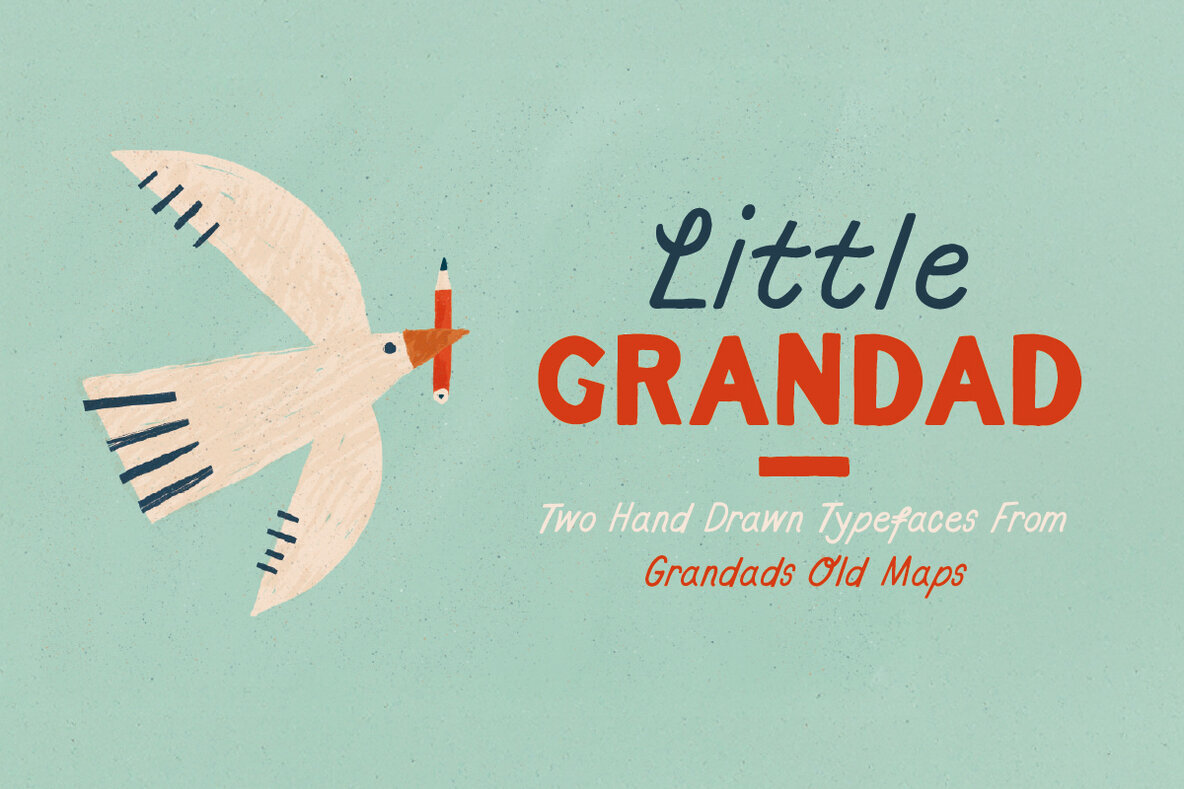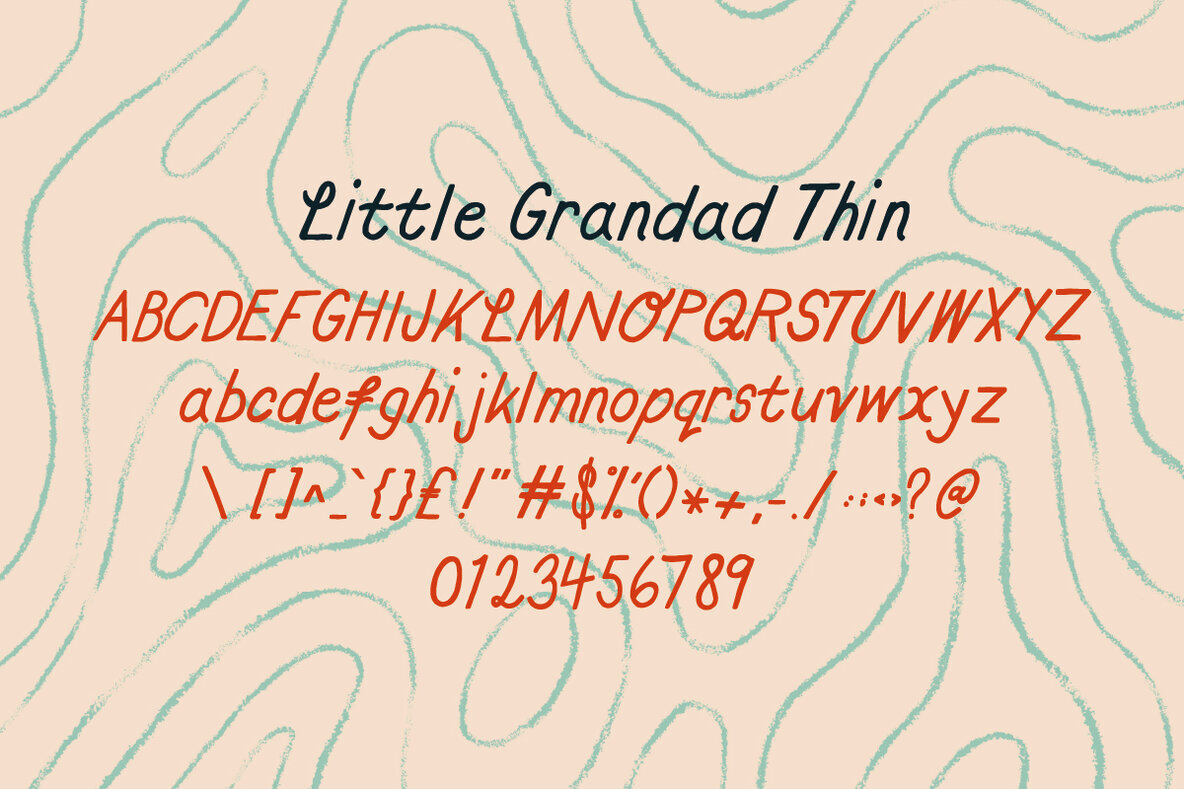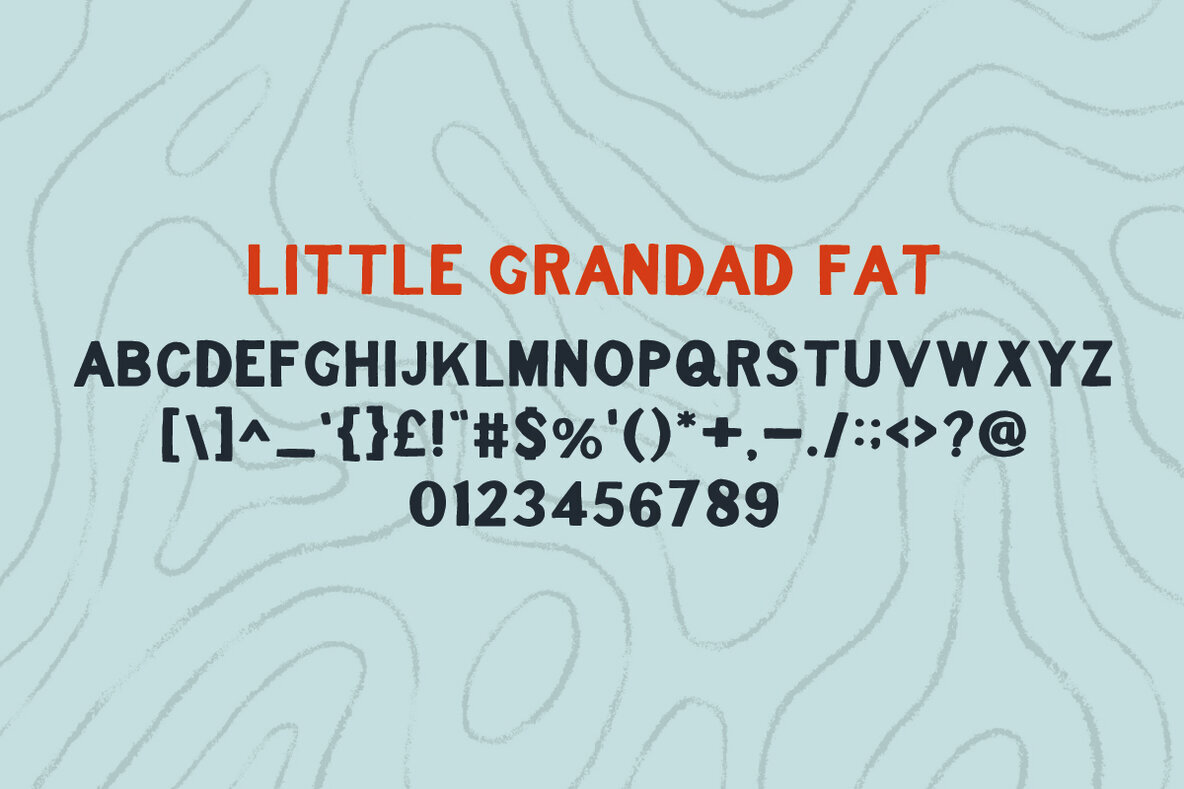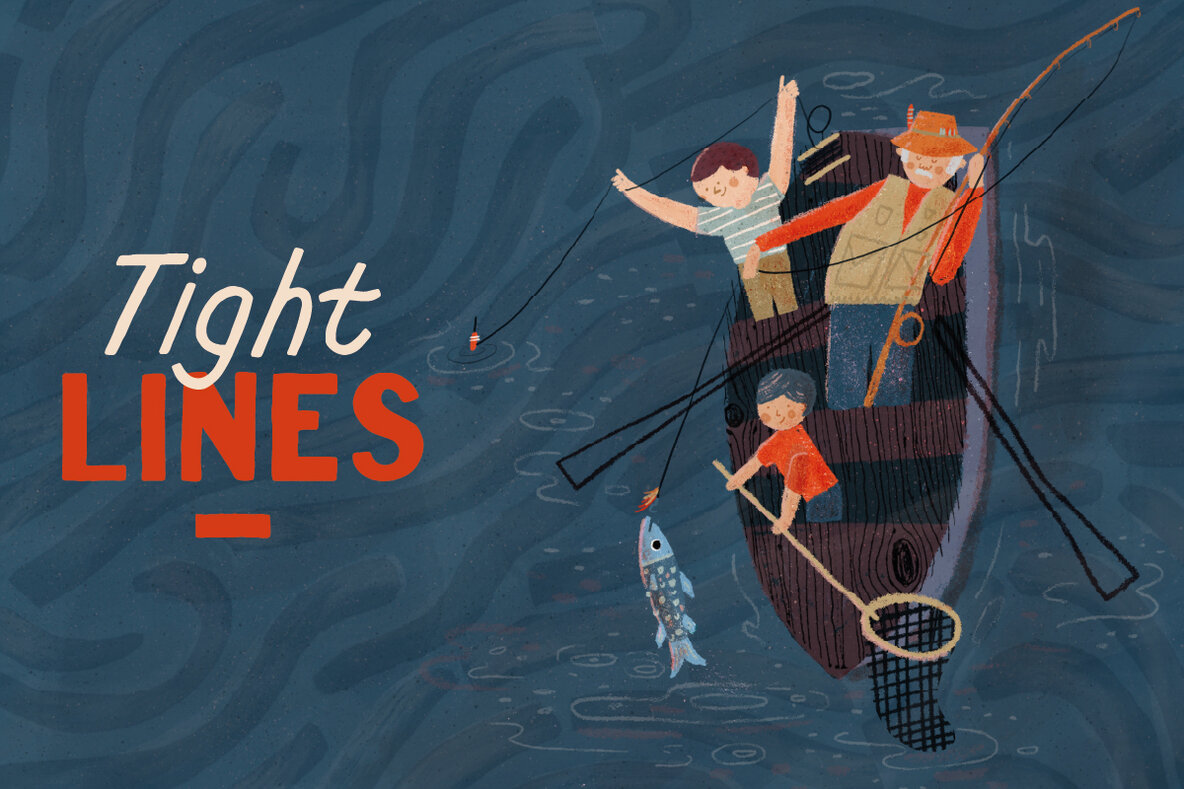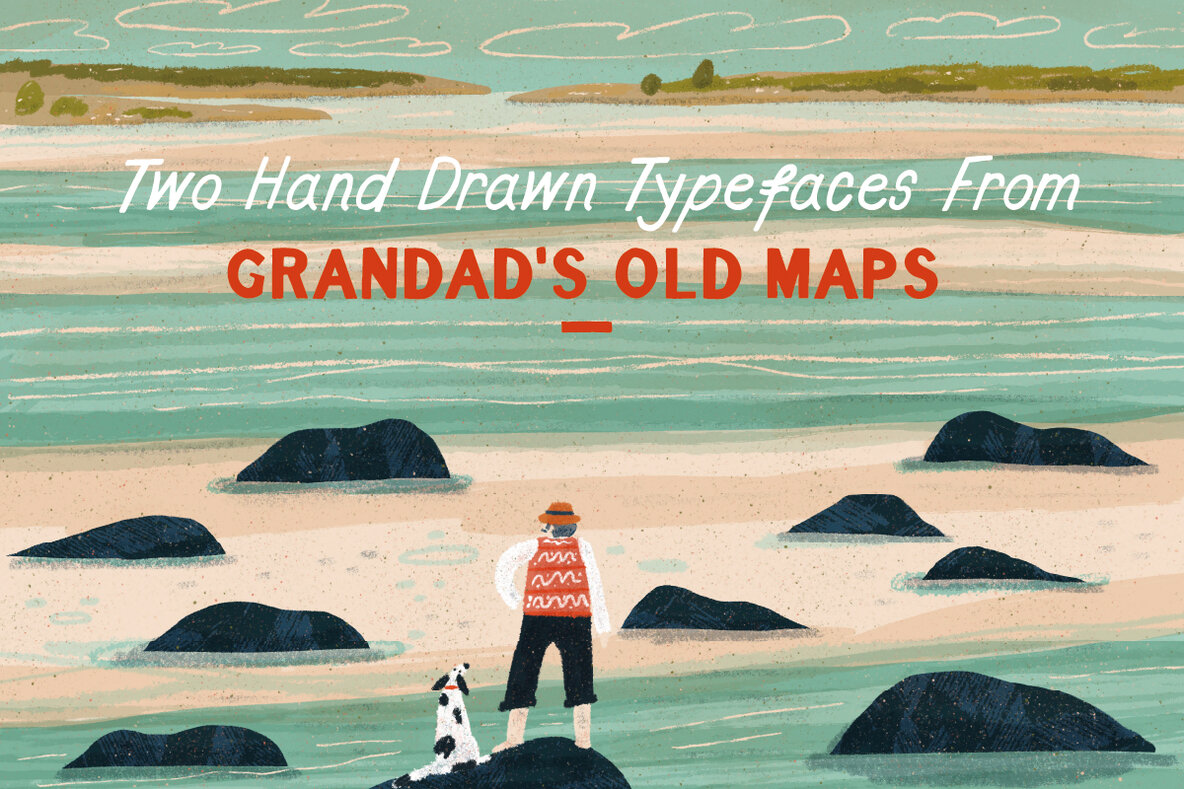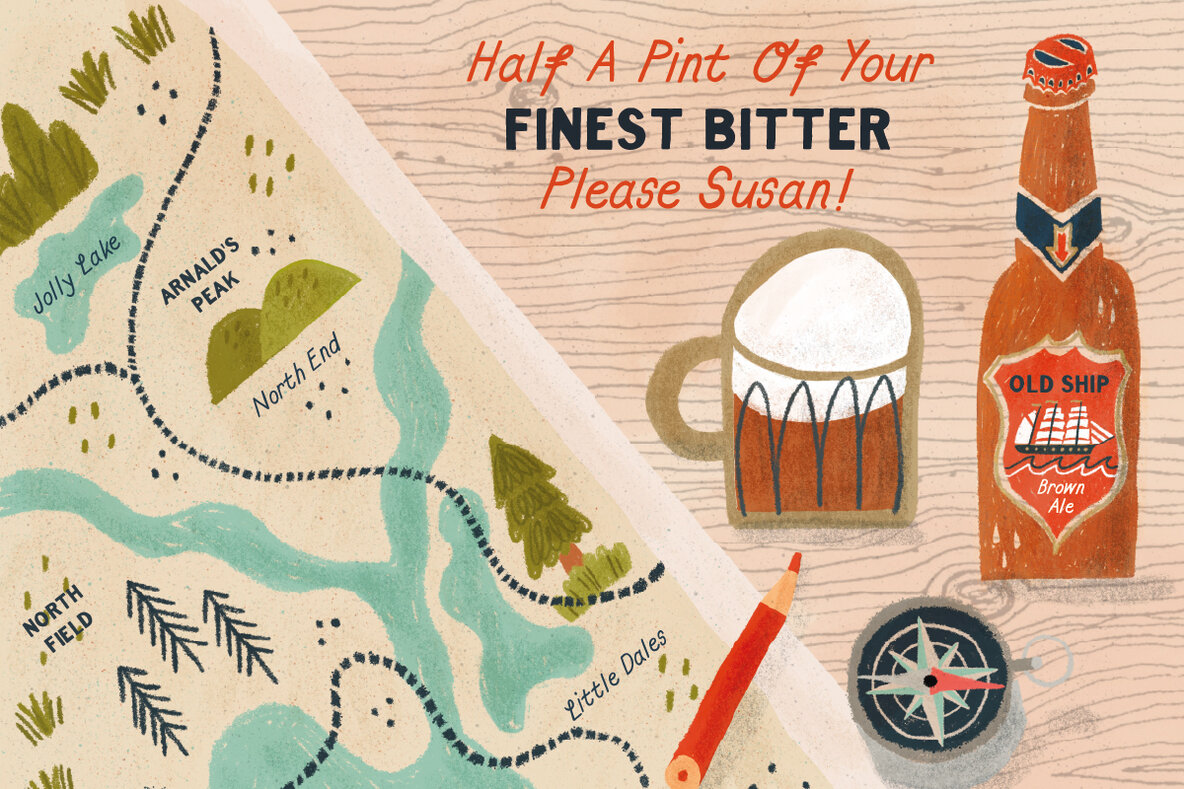
Little Grandad Font
Little Grandad is a charming typeface duo that evokes nostalgia through its design, inspired by long-forgotten adventures. This set captures the essence of discovery, drawing from hand-traced letters based on original maps from a bygone era. The fonts in this collection are crafted to evoke the spirit of exploration and are perfect for embarking on design journeys across various media. Features: The Little Grandad duo offers a versatile choice for designers seeking to infuse projects with a blend of vintage allure and contemporary function.Little Grandad Typeface Duo: Nostalgic Design with Summit Views